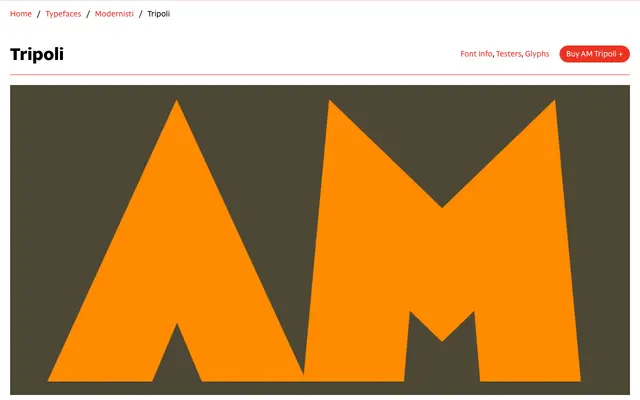
AM Tripoli
CAST · Alessandro Bombieri · 2024
A digital revival of an Italian wood type from the 1930s, retaining the expressionist angularity and hand-cut character of the original Xilografia Italiana specimen.
Originally produced as wood type by Xilografia Italiana around the time of Mussolini's mass settlement of Libya, the typeface carries a charged historical context behind its stark geometric forms. Bombieri's revival rationalises the original's flaws for the digital environment while preserving the abrupt angles, flattened arches and sharp triangular strokes that give it its raw, poster-cut character. With a single weight and no italics, it is purpose-built for display use where texture and historical weight matter.
An all-caps geometric sans with expressionist characteristics drawn from early 20th-century Central European poster lettering, featuring abrupt angular strokes and sharp triangular details that place it firmly in the display category.